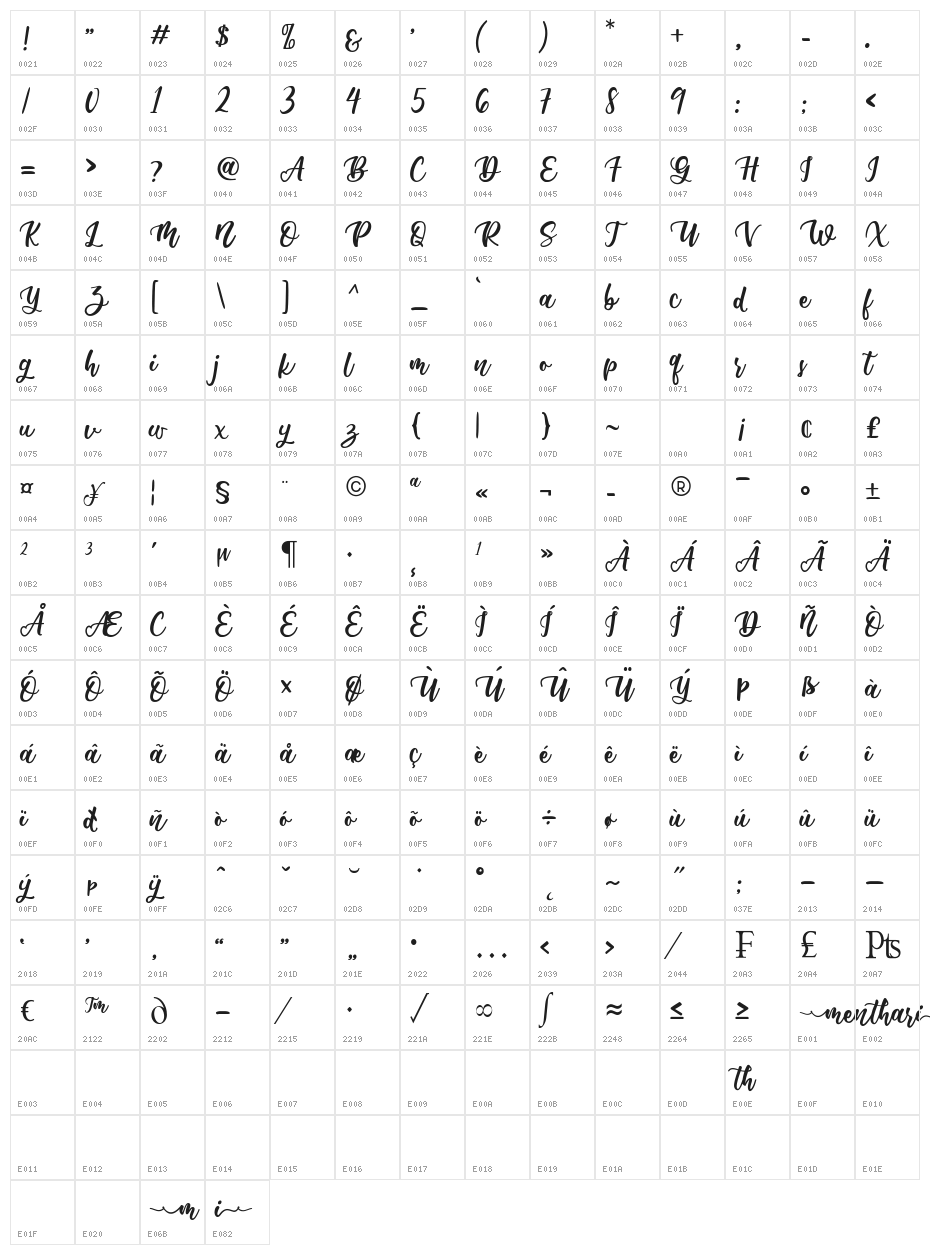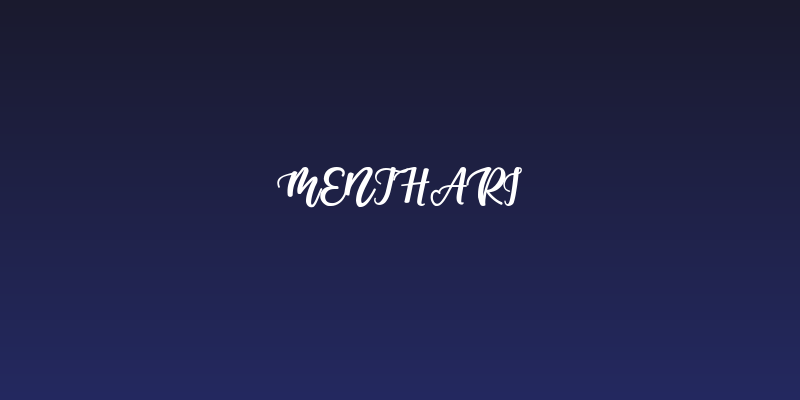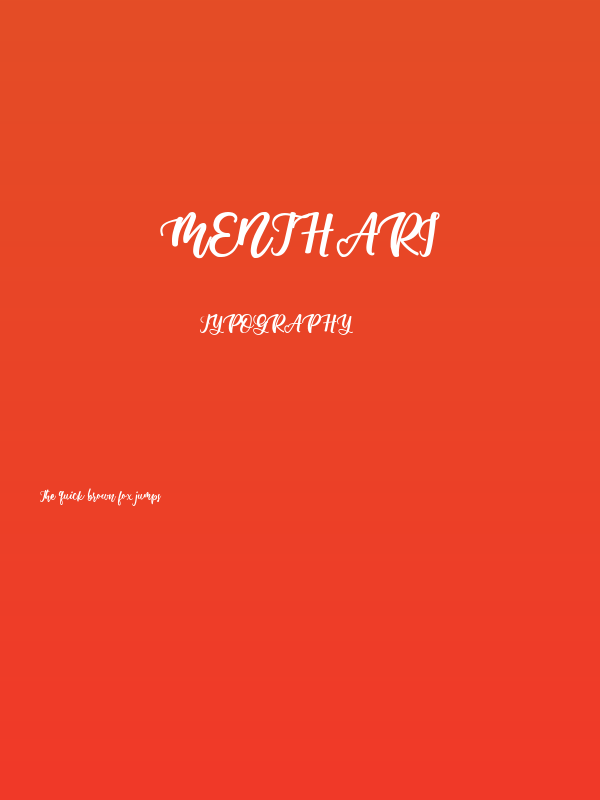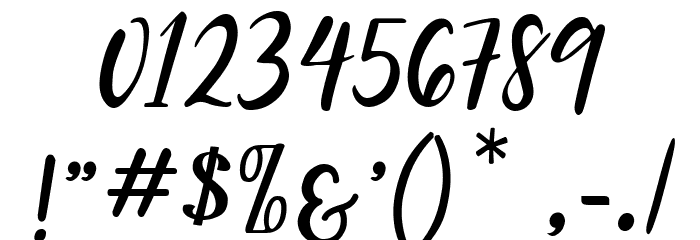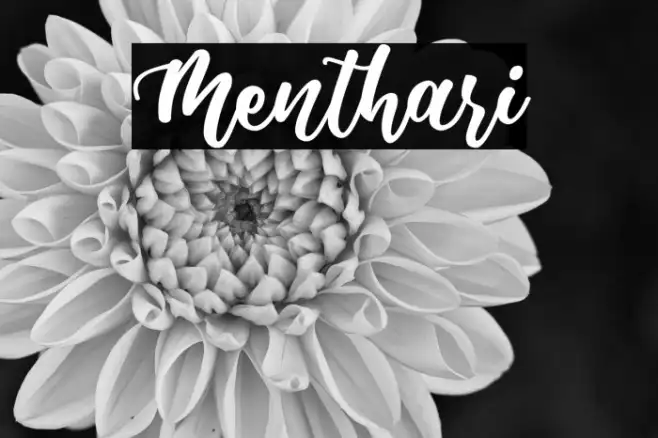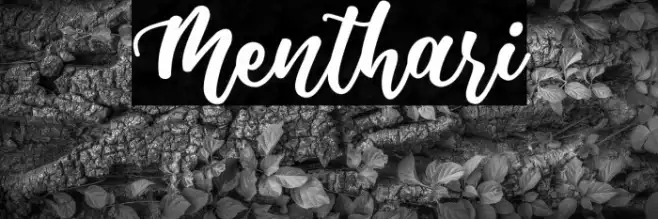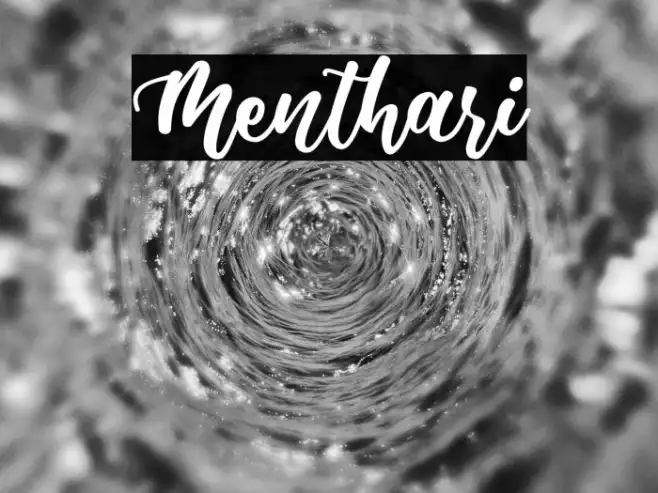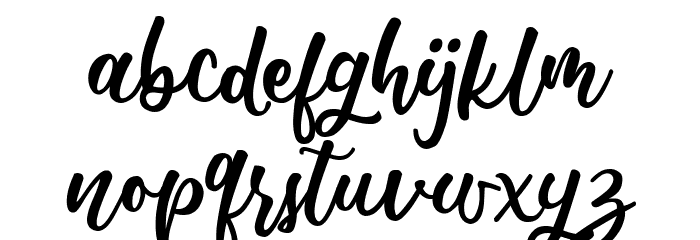
Menthari Font
Menthari Description
This font exhibits a flowing, cursive style with a modern twist. The uppercase letters are elegantly connected, creating a sense of movement and fluidity. The lowercase letters maintain a consistent style, with smooth curves and a slightly playful appearance. The numbers are bold and clear, matching the overall aesthetic. Special characters are designed with the same attention to detail, ensuring they blend seamlessly with the letters and numbers. The font's bold strokes and dynamic shapes make it highly legible while retaining an artistic flair.
| Proposed Projects | Ideal for wedding invitations, greeting cards, branding projects, and social media graphics. |